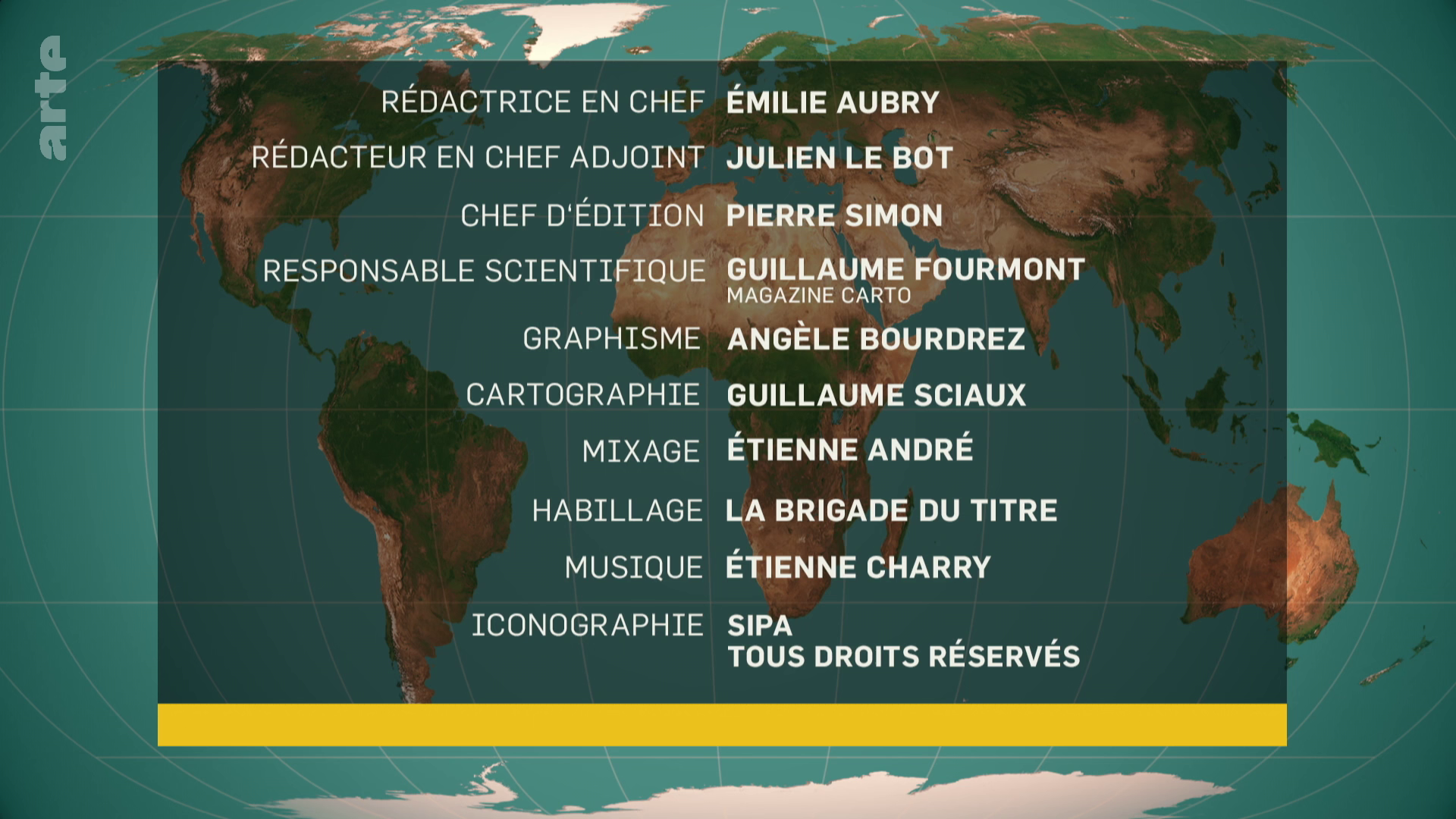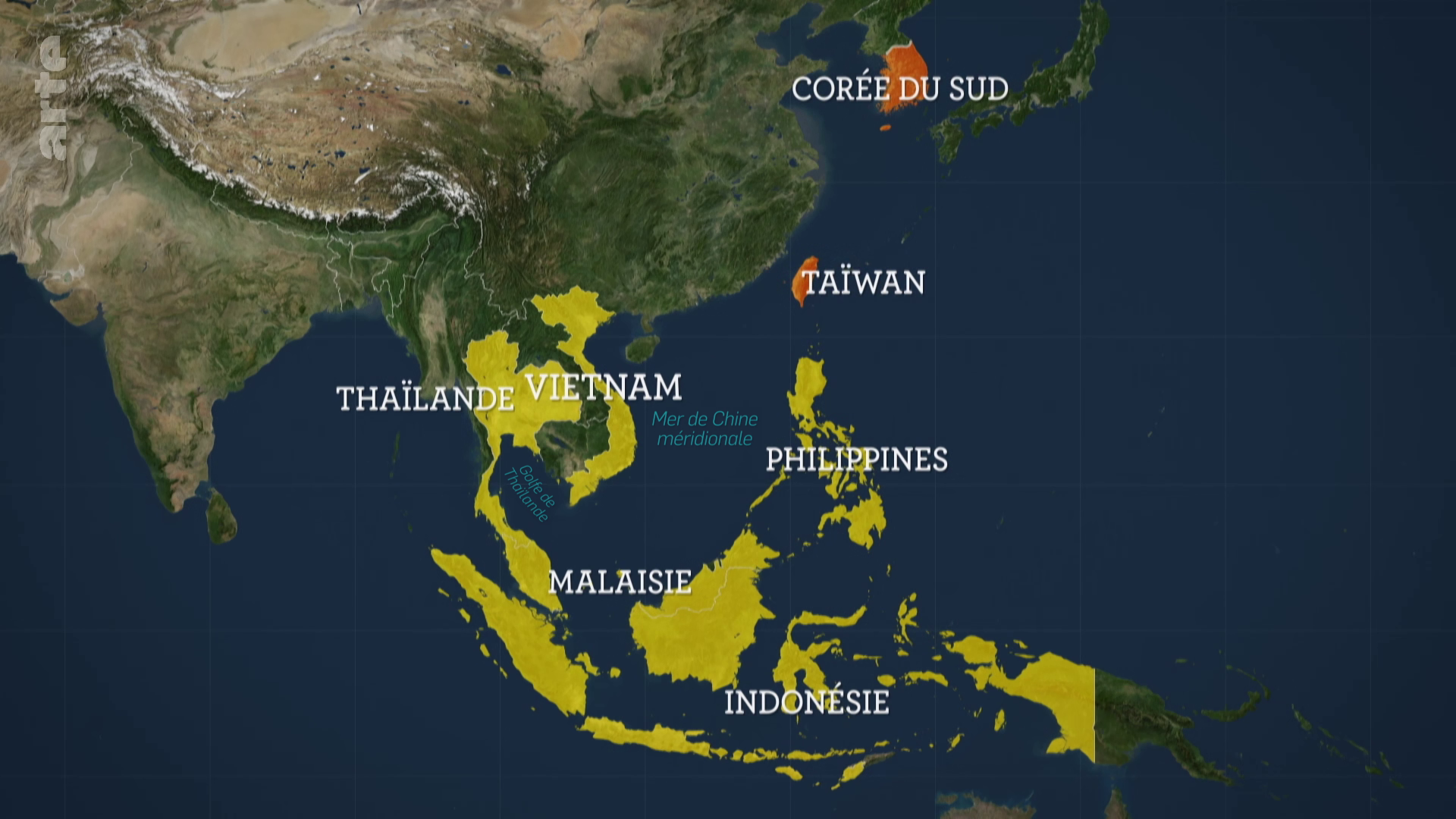
Fonts used by "Le dessous des cartes" on ARTE
Hi everyone! I’ve been trying to identify the fonts used in the show Le dessous des cartes, broadcast by ARTE in Strasbourg. It looks like there’s one serif font and one or two sans serif fonts. Please take a look at the attached photos.